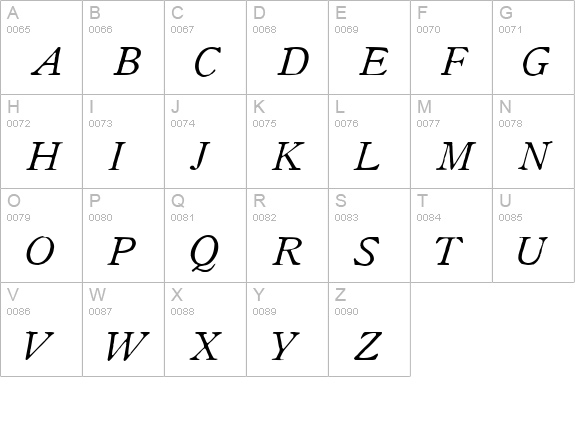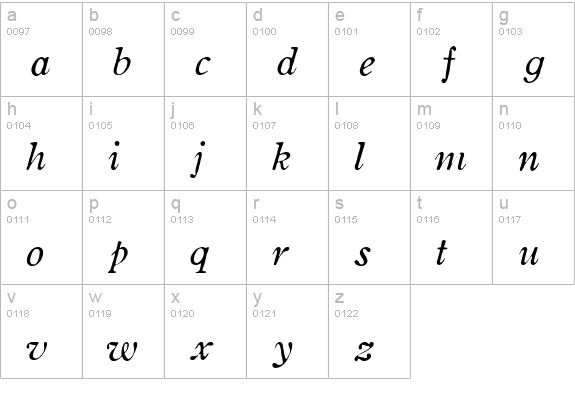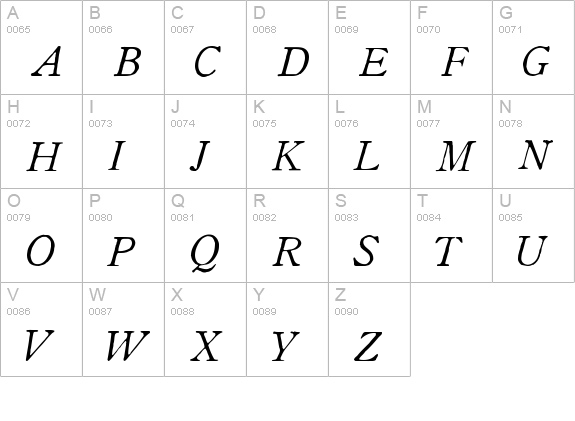
Oldstyle Italic HPLHS Font Details
Oldstyle Italic HPLHS is a distinctive, italic variant in the Oldstyle typeface family \xE2\x80\x94 well suited to design and typography projects.
The Oldstyle Italic HPLHS font is a timeless and elegant typeface that exudes sophistication and classic charm. Its subtle slant and traditional design make it perfect for adding a touch of refinement to any project. The graceful curves and delicate serifs of this font create a sense of timeless beauty that is sure to captivate your audience. What's even better is that the Oldstyle Italic HPLHS font is available for free download at FontsMarket.com. This means you can easily access this exquisite typeface and incorporate it into your designs without any cost. Whether you're working on a formal invitation, a vintage-inspired poster, or a stylish logo, the Oldstyle Italic HPLHS font will elevate your project to new heights of elegance and sophistication. Don't miss out on this opportunity to enhance your design work with this stunning font, available for free at FontsMarket.com.